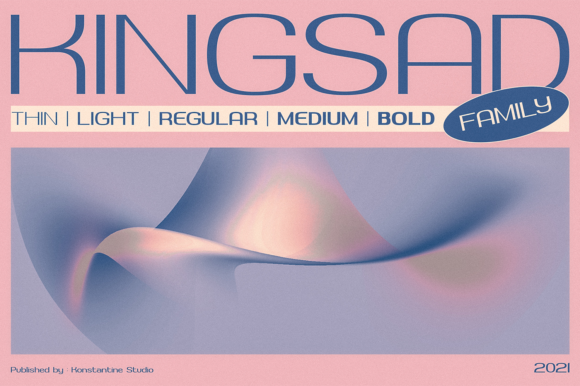
Unleash your creativity with Kingsad Font, the ultimate display font designed to make your designs stand out. This remarkable font from the konstantinestudio family captivates with its unique robotic style, transforming your projects with its modern and futuristic charm.
Kingsad Font isn't just a font; it's an experience. Its captivating strokes and sharp angles create a visual symphony that demands attention. Whether you're crafting logos, posters, website designs, or any other creative endeavor, Kingsad Font adds an instant touch of sophistication.
Immerse yourself in endless possibilities as you explore the versatility of Kingsad Font. Its distinct character effortlessly blends with formal and informal themes, making it the perfect choice for a diverse range of projects. Whether you're designing a cutting-edge brand identity or adding a touch of modernity to a personal project, Kingsad Font is your ultimate creative companion.
Step into the future of typography with Kingsad Font, a font that embodies innovation and style. Its sleek lines and precise curves exude a sense of professionalism and confidence. As you type each letter, feel the satisfaction of creating something truly remarkable, something that reflects your unique vision and leaves a lasting impression.